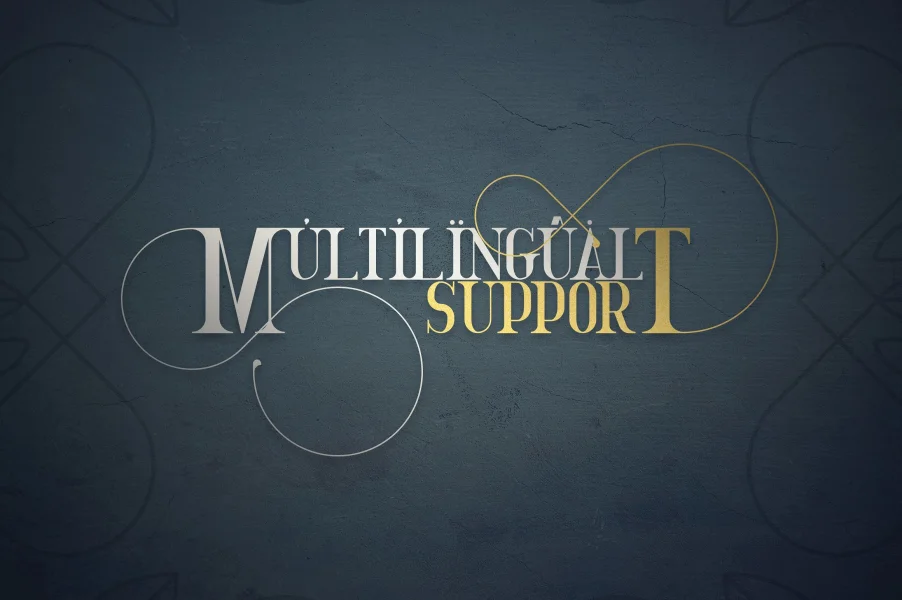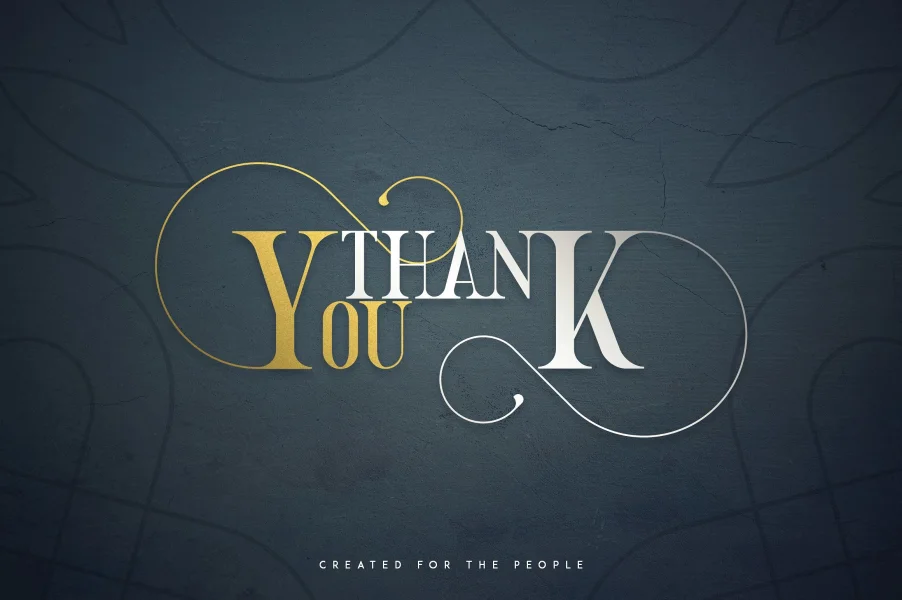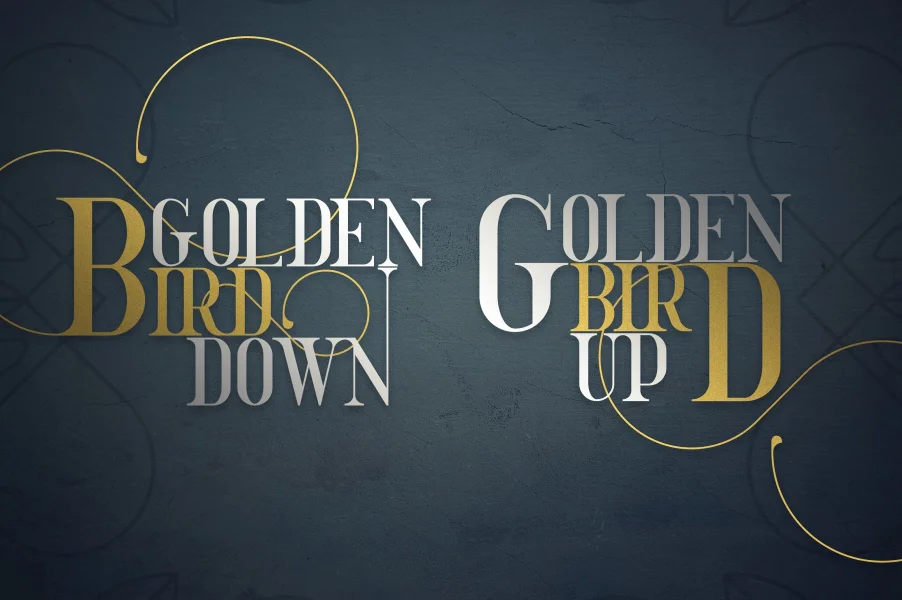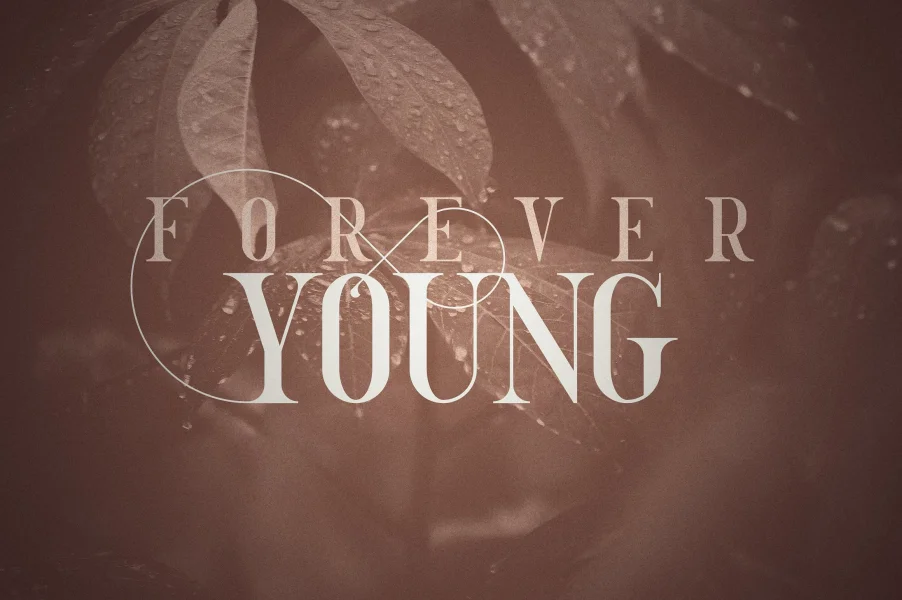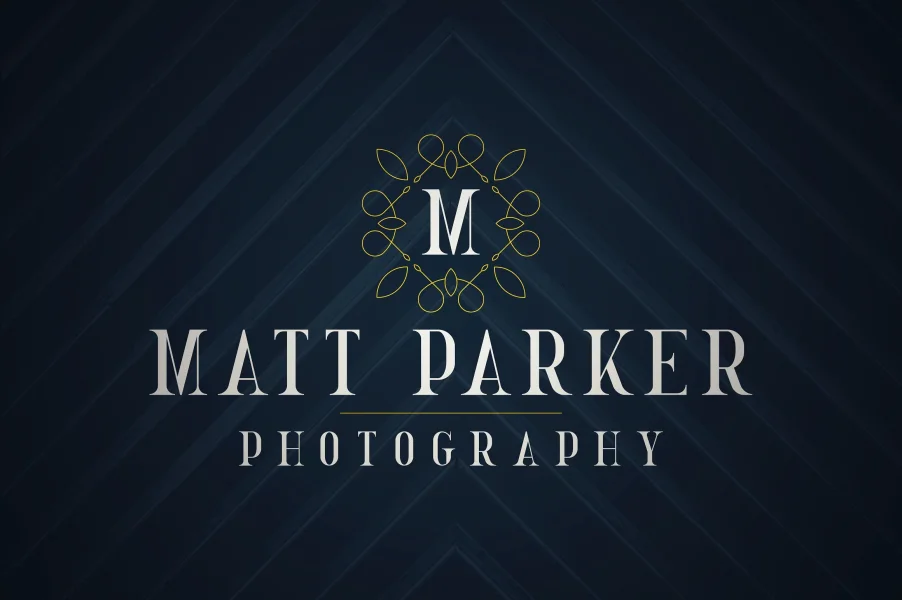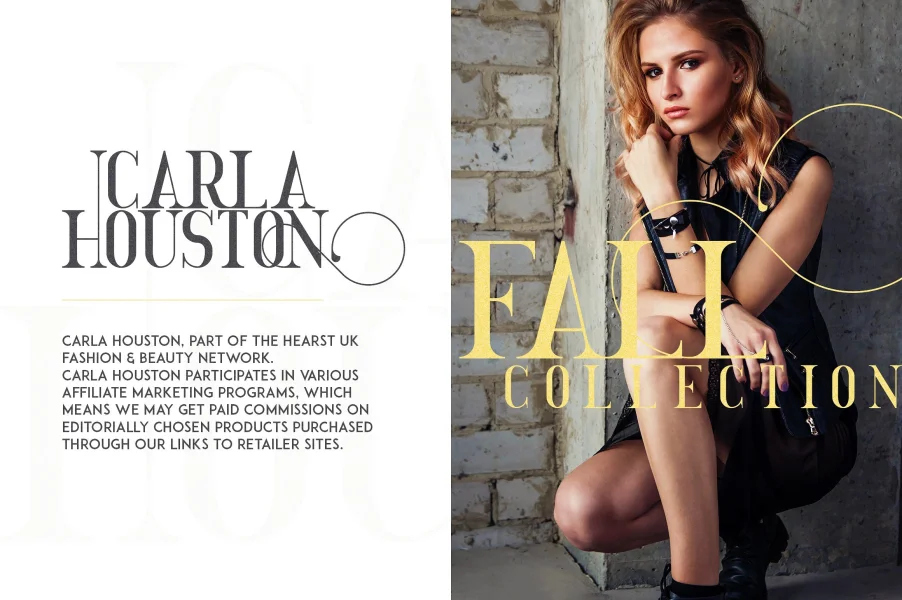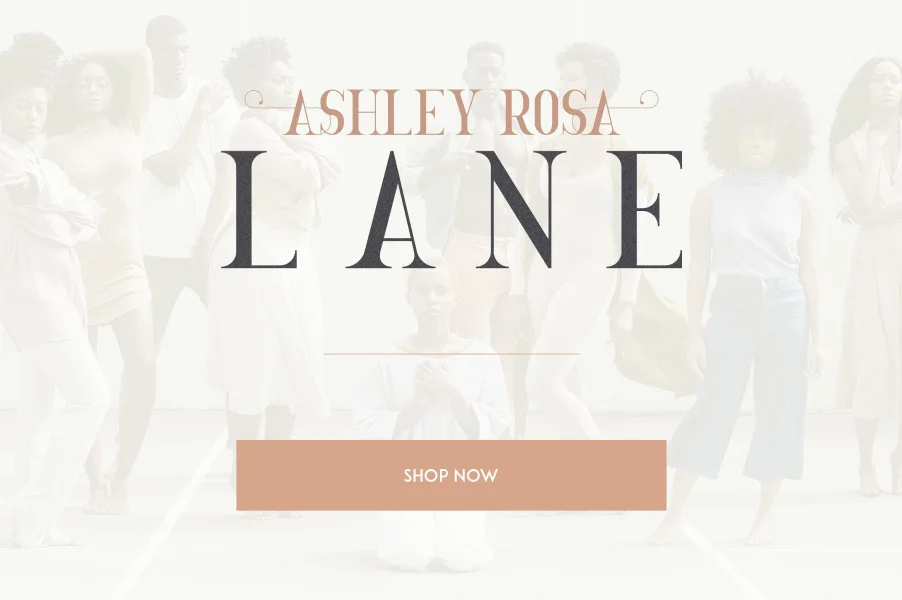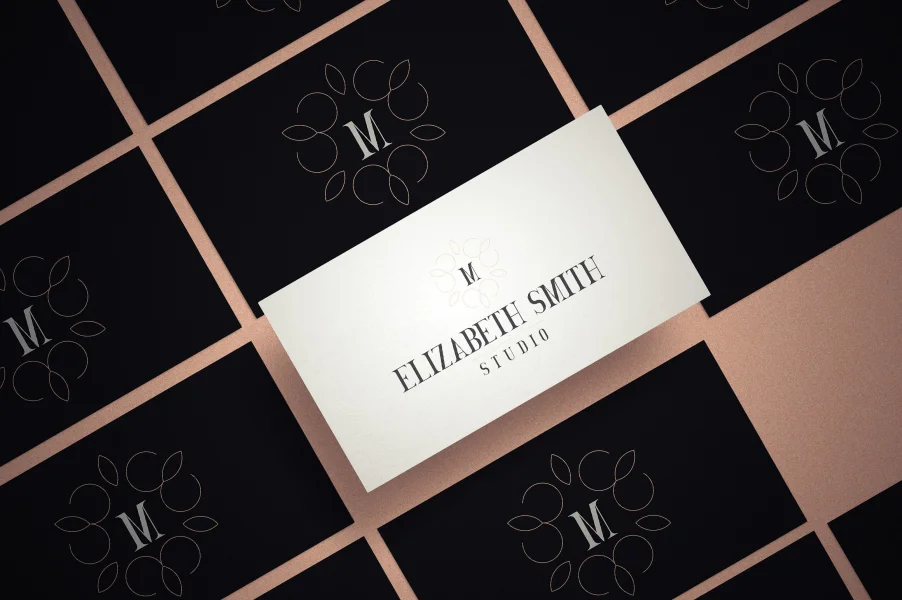
Golden Bird is elegant, clean font with tons of alternative glyphs, vector shapes, photoshop styles and multilingual support. It's a very versatile font that works great in large and small sizes.
Golden Bird is perfect for branding projects, home-ware designs, product packaging, magazine headers - or simply as a stylish text overlay to any background image.